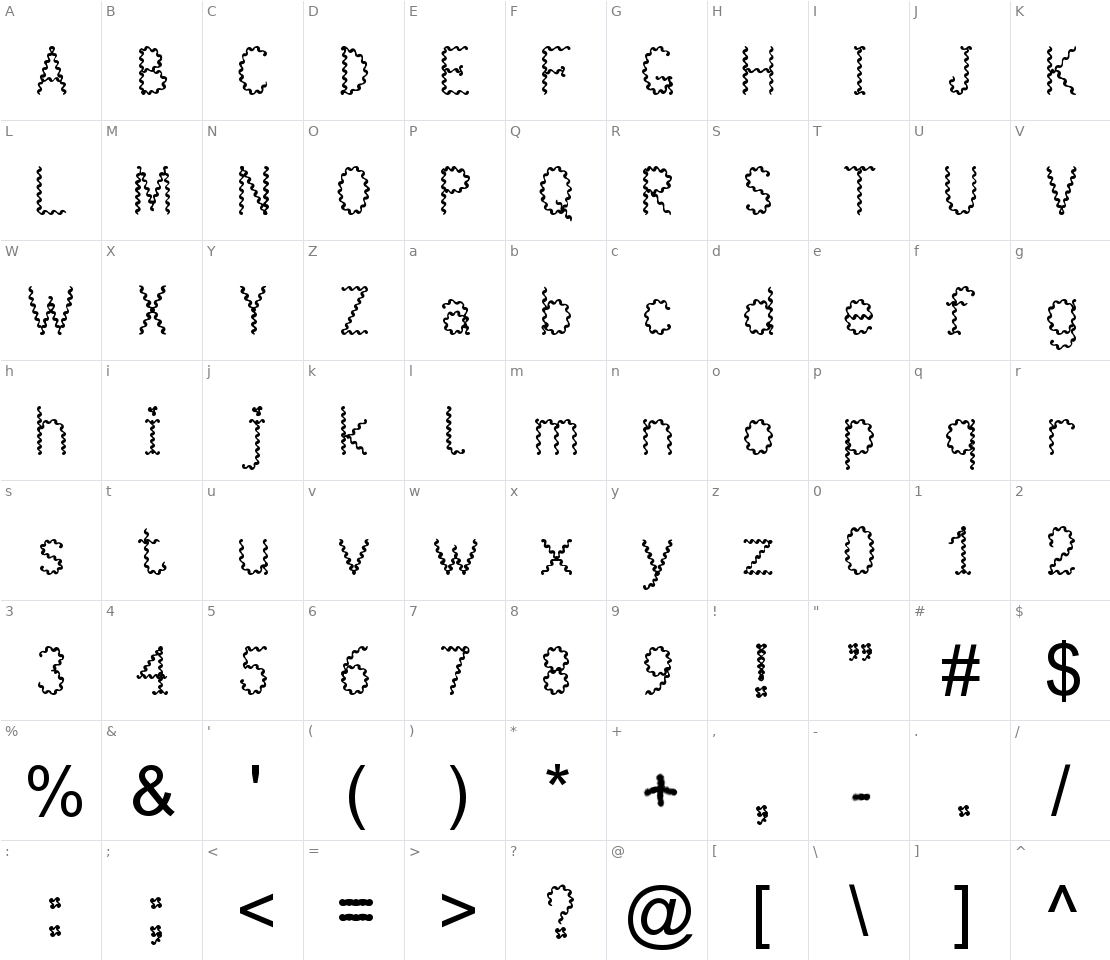
Bymberangiykas
Bymberangiykas is a quirky, distorted display face from Vlad Viperov with wavy outline letterforms that ripple and bend like they're being viewed through heat haze. The irregular strokes give each character a restless, hand-warped quality that's more playful than aggressive, sitting in an unusual space between decorative and experimental. Best kept to headlines and short text where its rough, wobbly personality can do the talking.